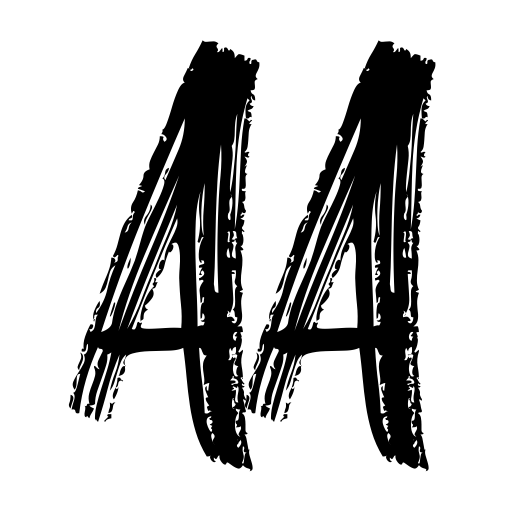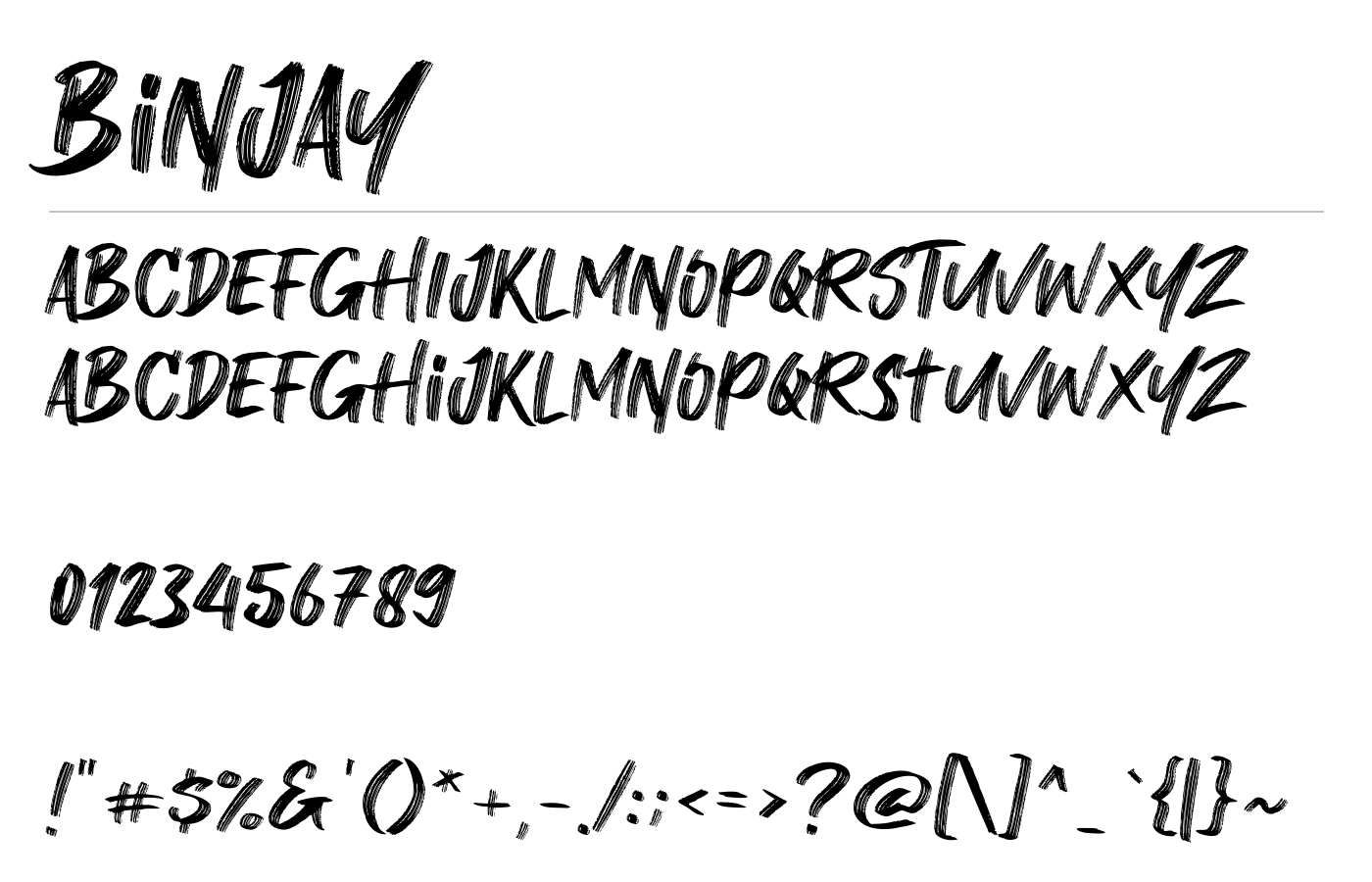
Binjay is a bold, expressive brush script font that features energetic, hand-painted strokes with a rough texture. Its informal, dynamic style makes it perfect for adding a lively, artistic touch to creative projects like logos, posters, and branding that aim to feel personal and vibrant.
Binjay Font
About Binjay Font